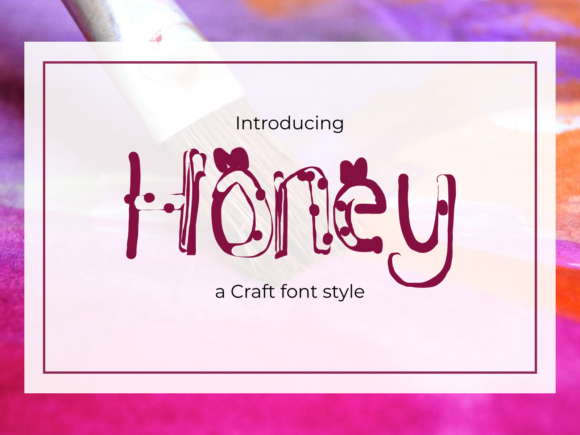
Honey Font
About Honey Font
Honey feels equally charming and playful. Whether it’s for web, print, moving images or anything else this handwritten font will look spectacular.